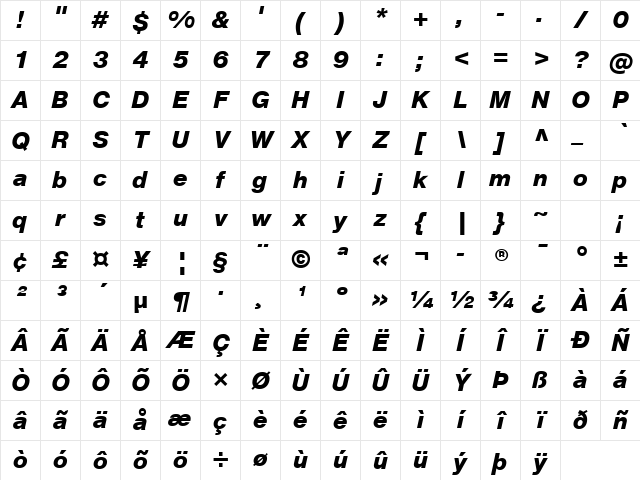
ExtraBold Italic
Foundry: Monotype Imaging Inc.
Designer: Max Miedinger, Charles Nix, Monotype Studio, Jan Hendrik Weber
Design Context for ExtraBold
ExtraBold is a composed and adaptable typeface that performs quietly and consistently across a wide range of design contexts. The slanted form adds forward momentum and visual energy. Its bold stroke weight gives it real presence on the page.
Pro Tip: Use ExtraBold for emphasis, pull quotes, and subheadings where its slanted energy can add rhythm to the layout.